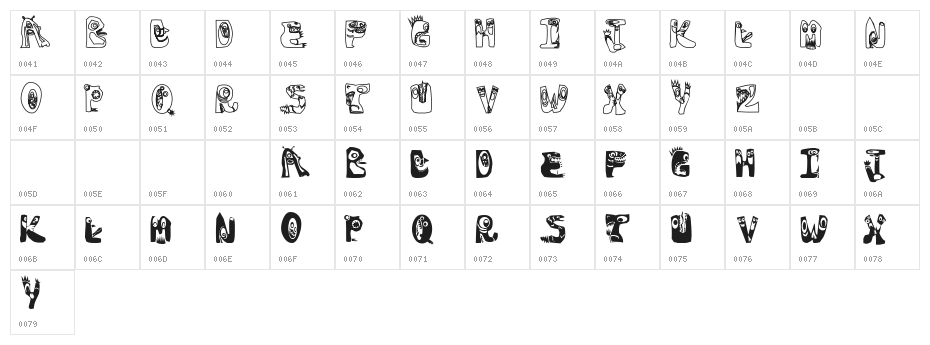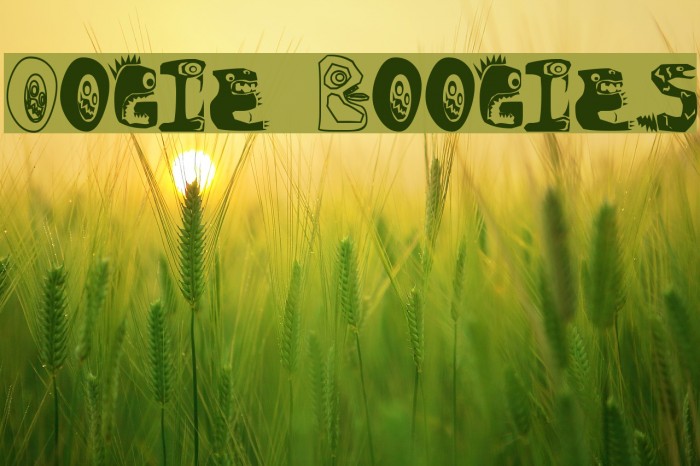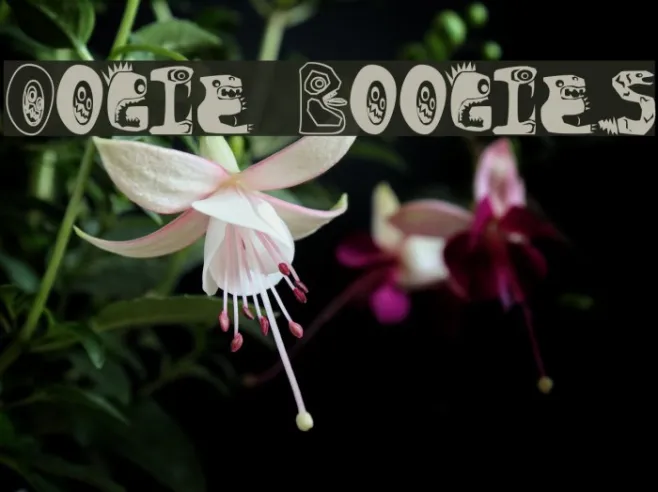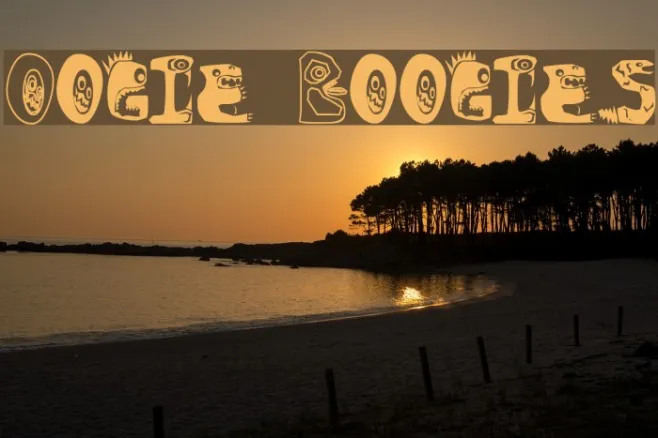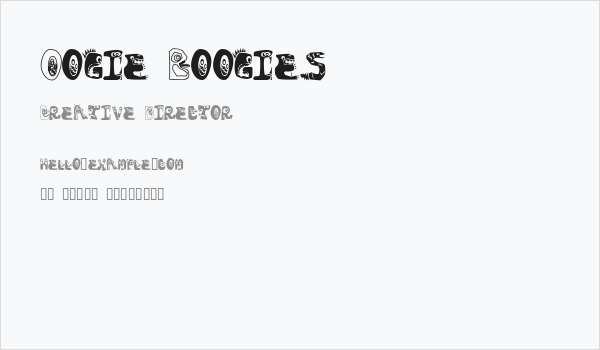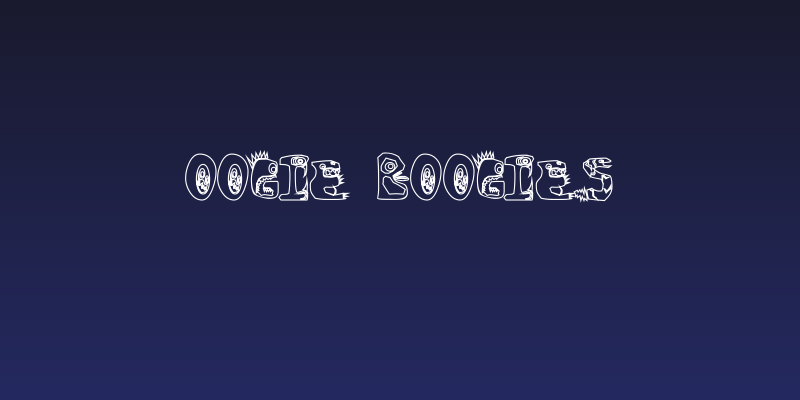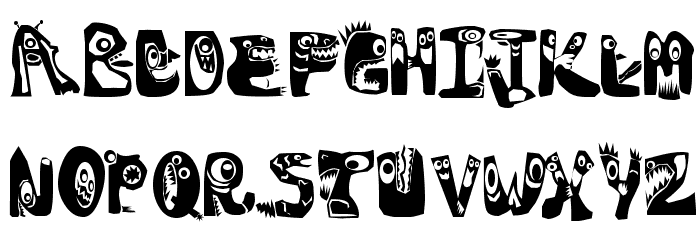
Oogie Boogies Font
Oogie Boogies Description
This font is a whimsical and playful typeface that features a variety of quirky and imaginative characters. Each letter is uniquely designed with elements that resemble eyes, teeth, and other monster-like features, giving it a distinctly spooky and fun appearance. The uppercase and lowercase letters are consistent in their creative style, making it ideal for projects that require a touch of fantasy or Halloween-themed designs. The font's decorative nature makes it stand out, with each character offering a unique visual experience. The absence of numbers and special characters suggests a focus on artistic expression rather than functionality.
Proposed ProjectsIdeal for Halloween invitations, themed party posters, children's book covers, and creative branding projects.